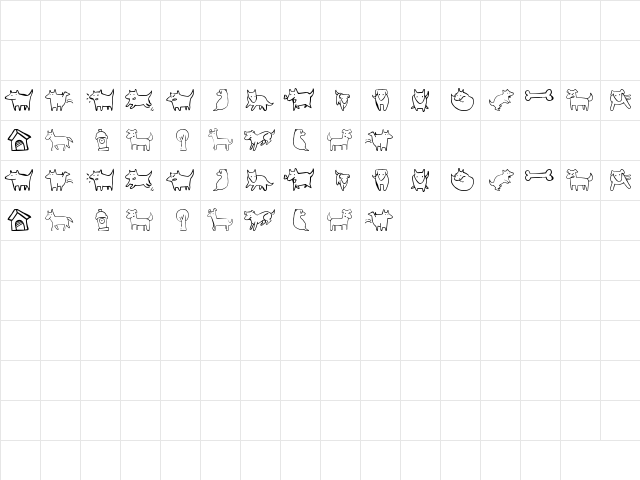
kiltro Regular
Design Context for kiltro Typeface
kiltro is a composed and adaptable typeface that performs quietly and consistently across a wide range of design contexts.